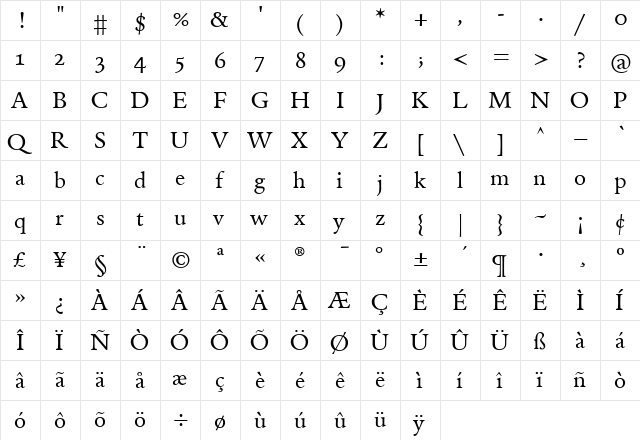
Andron Freefont LAT Regular
| Foundry | Andreas Stoetzner |
| Designer | Andreas Stoetzner |
Design Context for Andron Freefont LAT Typeface
Andron Freefont LAT offers clean, dependable letterforms without strong stylistic allegiance, making it a practical choice for designers who need flexibility.